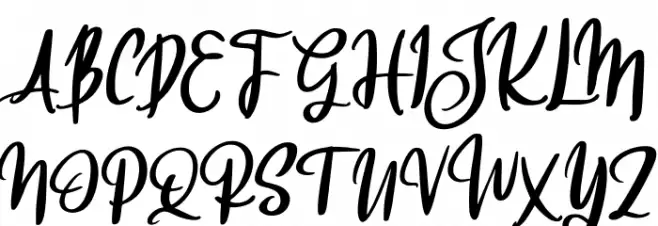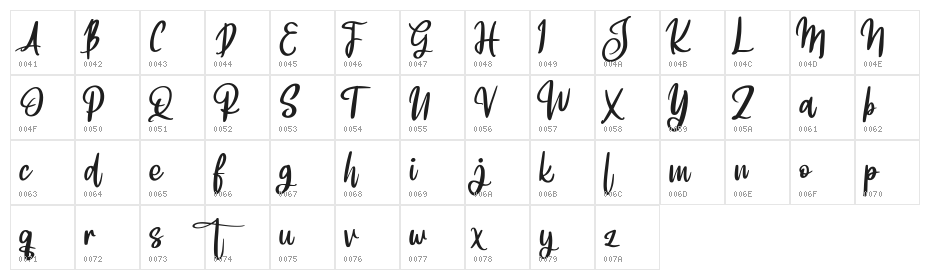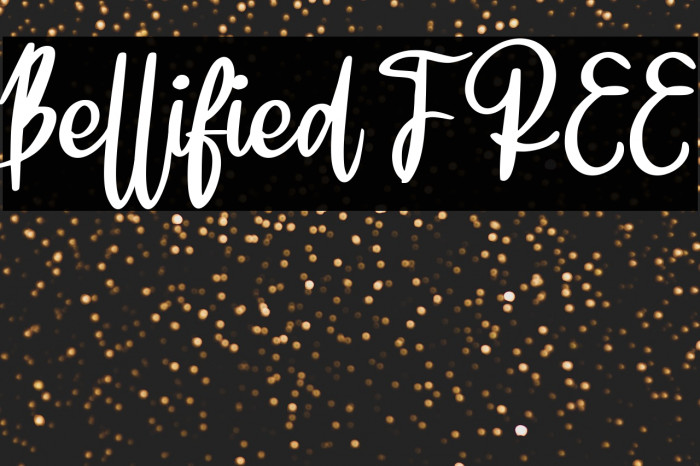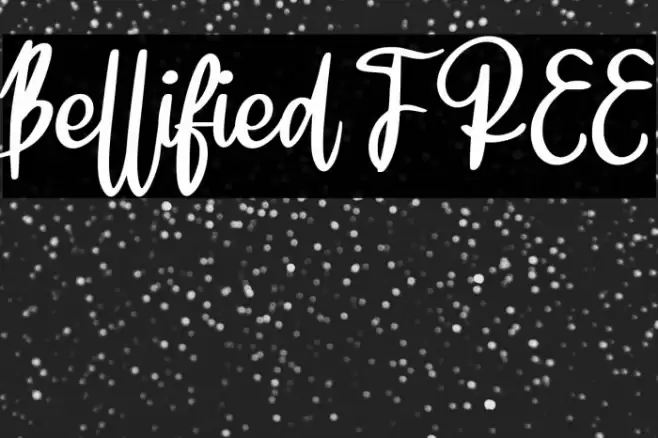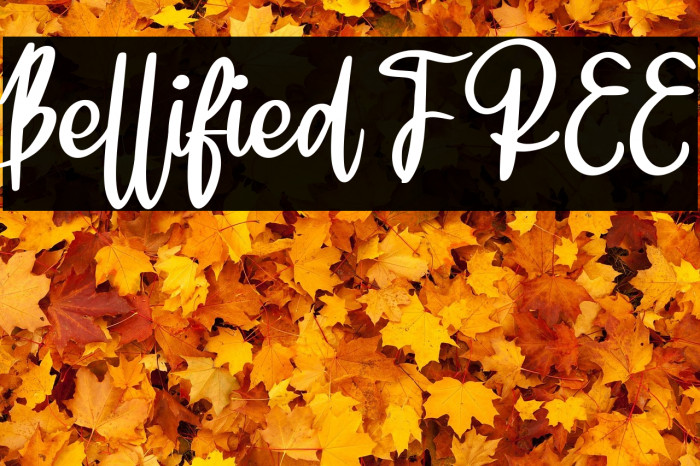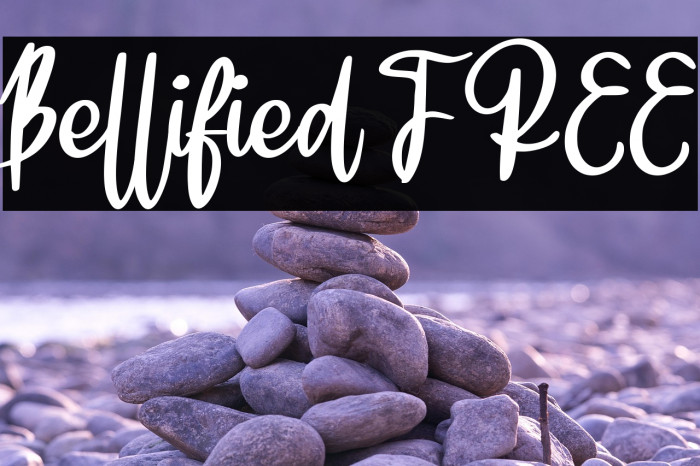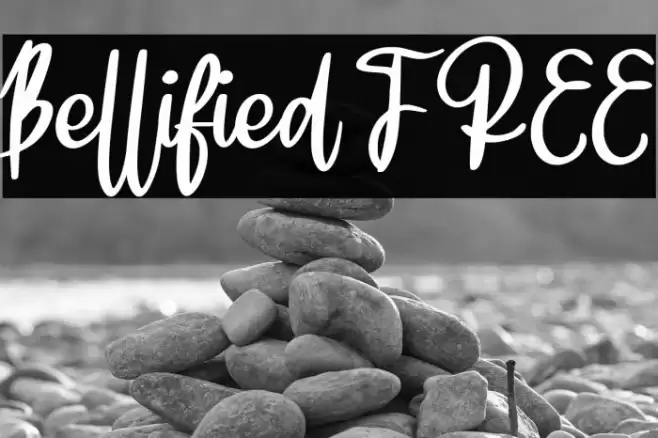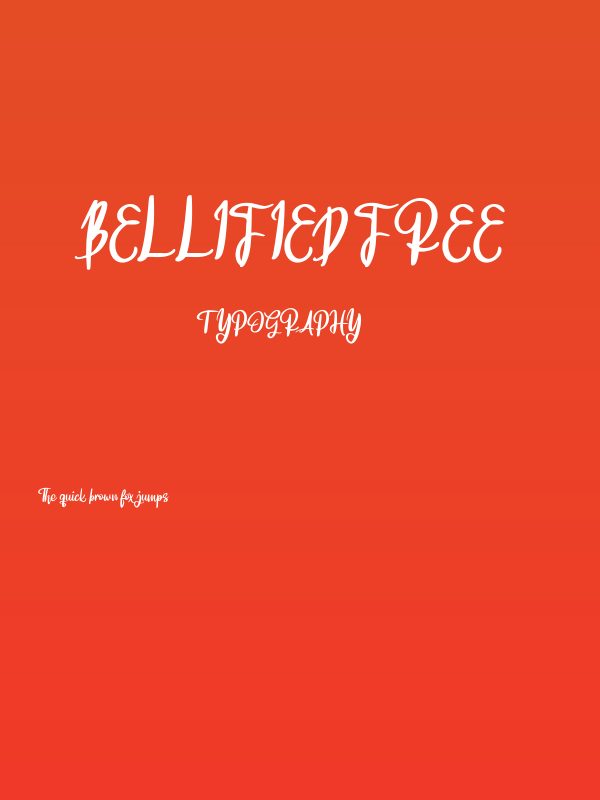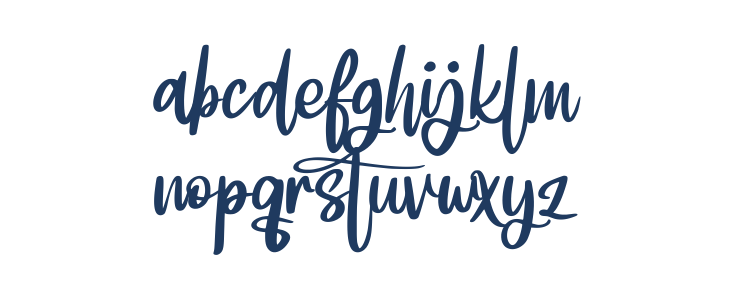
Bellified FREE Font
Bellified FREE Description
This font exudes a playful and artistic flair, characterized by its flowing, cursive style. The letters are interconnected, creating a sense of continuity and elegance. The uppercase letters are bold and expressive, with exaggerated loops and swirls that add a whimsical touch. The lowercase letters maintain a consistent style, with smooth curves and a slightly informal appearance. The numbers and special characters are designed to match the overall aesthetic, ensuring a cohesive look across all text elements. This font is ideal for projects that require a personal, handwritten feel, such as invitations, greeting cards, or branding materials.
Use CaseLogos, Headlines, Invitations
Proposed ProjectsIdeal for invitations, greeting cards, branding, and any project requiring a personal touch.